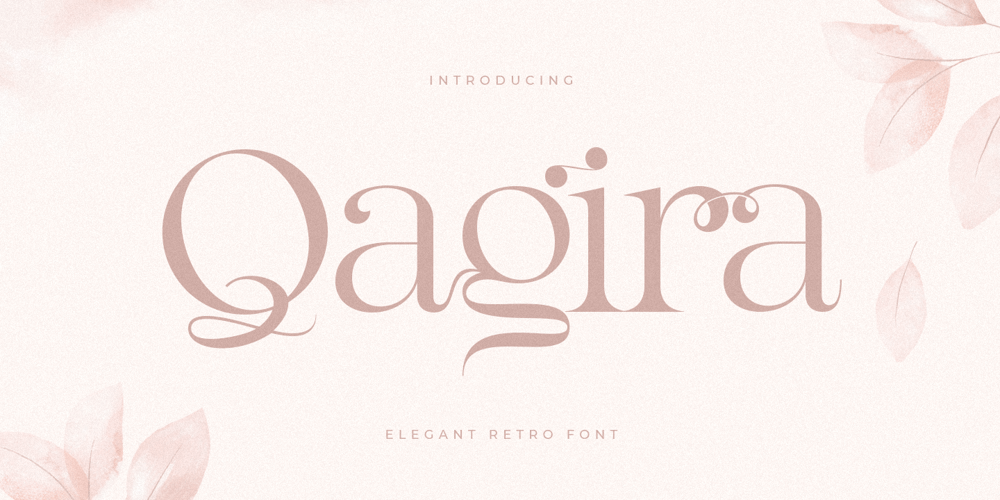
Qagira Font Family was designed by Zamroni Hamzah and published by Sensatype Studio. Qagira contains 1 styles and family package options. Bagira is An Elegant Beauty Retro font that special crafted with carefully to leverage your design projectA new font that we created special for branding needs, with unique characters and awesome ligature characters are ready to add value of your brand. It so nice to leverage designer or product owner that need solutions to make their design look more beauty and modern. And specially for Bagira font, We prepared any ligature characters to help you create unlimited variations for your creative needs.Bagira Modern Vintage Beauty font ready with: Any options to get creative variations (combination of Ligature) 3 files format already Preview as a inspirations that you can do with Bagira font Ready with Lowercase and Uppercase characters Wish you enjoy our font. ๐